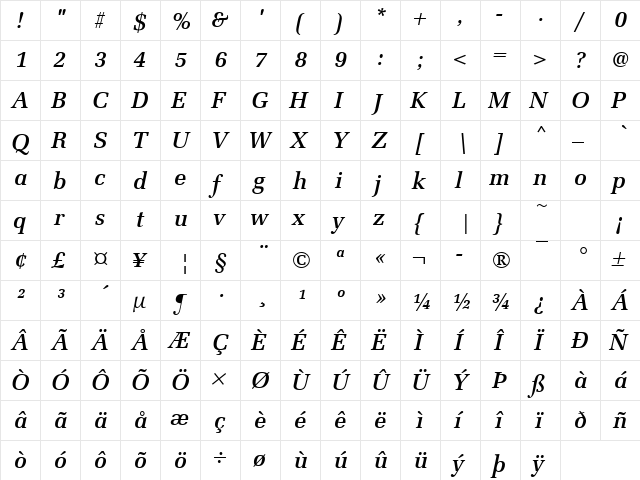
Becker Latino Med Italic
Design Context for Becker Latino Med Typeface
Becker Latino Med takes a measured approach to typography — its balanced proportions and neutral character make it a reliable workhorse for both digital and print work. Its italic angle brings a sense of urgency and motion to the letterforms.
Pro Tip: Use Becker Latino Med for emphasis, pull quotes, and subheadings where its slanted energy can add rhythm to the layout.